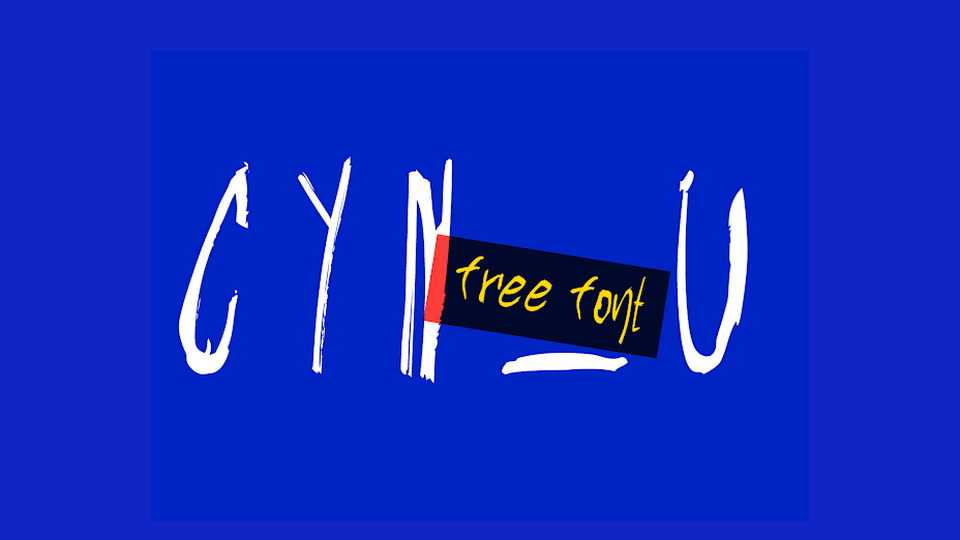
Download CYN U font, a rough and grungy hand lettered brush typeface. It’s design suits in everybody or super you need to cheer a bit up and give some emphasis-brightness.